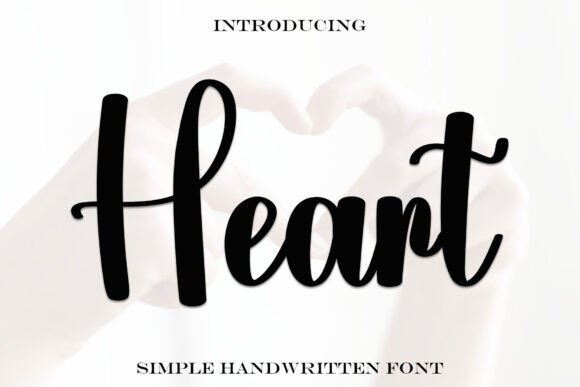
Falling in Love with Design: Introducing Heart Font
Do you ever find yourself lost in the creative process, pouring your heart and soul into a design project, only to step back and feel like it’s just missing that special something? That’s exactly how we feel when we’re working on a project that needs a touch of elegance and sophistication. And that’s where Heart Font comes in – a beautiful, handwritten font that adds a unique and timeless touch to any design.
With its distinctive style and delicate flair, Heart Font is the perfect choice for designers looking to add a personal touch to their work. Whether you’re creating a wedding invitation, a logo, or a social media graphic, Heart Font is sure to capture the attention of your audience and leave a lasting impression. Its versatility and beauty make it a valuable addition to any designer’s toolkit.
Key Features of Heart Font
- Font Family: Heart Font is a unique, hand-drawn font family that includes 6 styles: Regular, Bold, Italic, Bold Italic, Outline, and Shadow.
- Character Set: The font includes a wide range of characters, including Latin, Cyrillic, and Greek alphabets, as well as punctuation and symbols.
- Unique Characteristics: Heart Font features a distinctive, hand-drawn design with a touch of whimsy and romance, making it perfect for creative projects and designs that require a personal touch.
Heart Font Review
Heart Font is an interesting addition to the world of typography. It has a unique, playful touch that can add a lot of charm to designs. ✨ The font is perfect for Valentine’s Day or other romantic-themed projects, but it can also be used in a more subtle way to add a touch of whimsy.
The font has a good range of styles, from bold to light, which makes it versatile for different design needs. ✨ It’s also quite easy to read, even at smaller font sizes, which is a plus.
One major limitation of Heart Font is its lack of elegance. ✨ While it’s perfect for casual or playful designs, it may not be the best choice for more formal or professional projects.
Another limitation is its limited language support. ✨ If you need to use the font for a project that requires multiple languages, you may need to consider other options.
Overall, Heart Font is a fun and playful font that can add a lot of personality to designs. While it may not be the best choice for every project, it’s definitely worth considering for the right application.
- Unique, playful design
- Good range of styles (bold to light)
- Easy to read, even at smaller font sizes
- Limited language support
- Lack of elegance (not suitable for formal or professional projects)
Practical Application Guide for Heart Font
Tip: Use Heart Font to create romantic and playful designs for Valentine’s Day or wedding invitations.
Tip: Use Heart Font to create custom graphics for social media or branding materials.
Tip: Use Heart Font to create eye-catching presentations or reports.
Heart Font is commonly used for:
- Valentine’s Day and wedding invitations
- Love-themed social media graphics
- Branding materials for romantic businesses
- Personalized gifts and cards